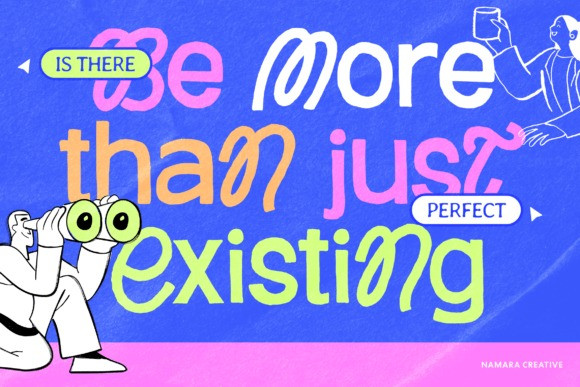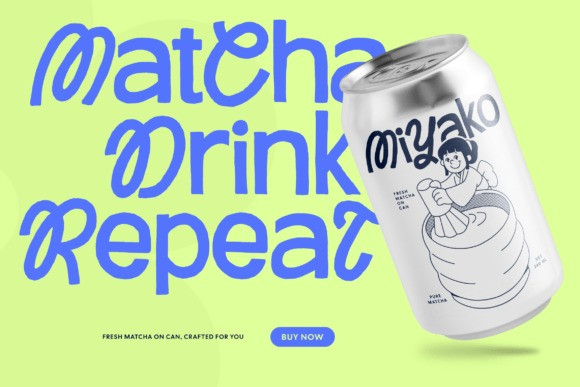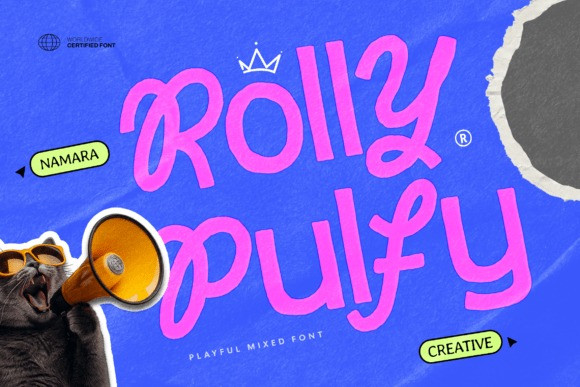
Rolly Pulfy Font
Rolly Pulfy Font Playful hybrid sans typeface designed to bring joy, personality, and modern charm into your designs. Blending clean sans-serif structure with hand-drawn, rounded letterforms, Rolly Pulfy strikes a perfect balance between bold clarity and friendly expression.
Crafted for creatives who want their typography to feel lively yet professional, Rolly Pulfy works beautifully across branding, packaging, posters, social media, merchandise, and editorial layouts. Its unique hybrid construction allows you to mix bold statements with soft, playful vibes-making it ideal for lifestyle brands, food & beverage, kids products, startups, and creative campaigns.